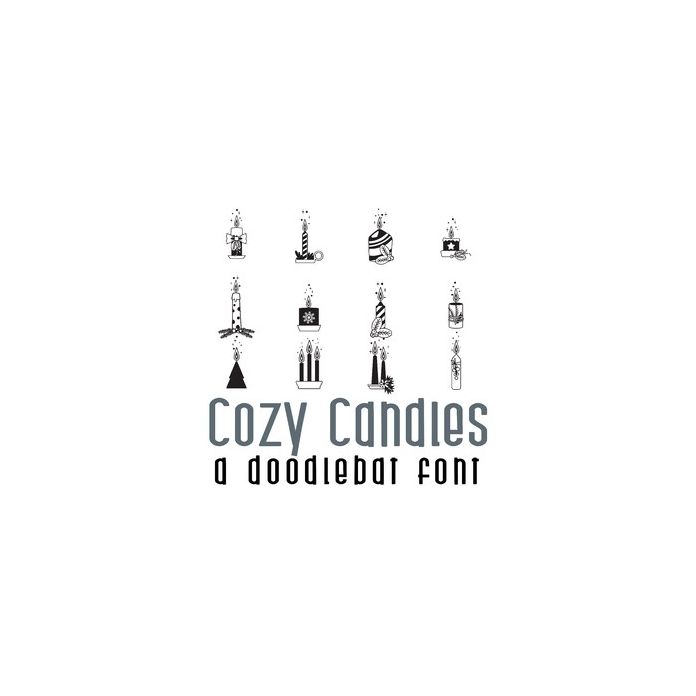
This beautiful doodlebat font features 26 cozy candles perfect for Winter months. Use for cards, crafts, decor, gifts, planner stickers, scrapbook pages, classrooms and more!